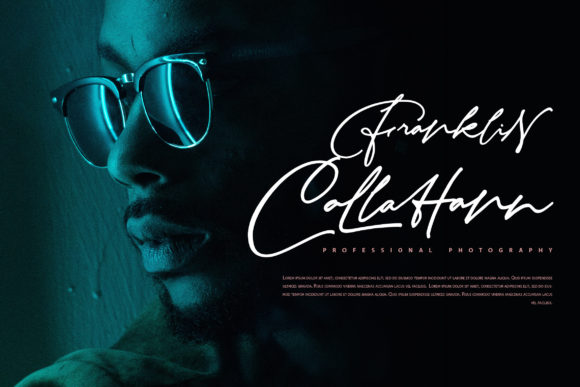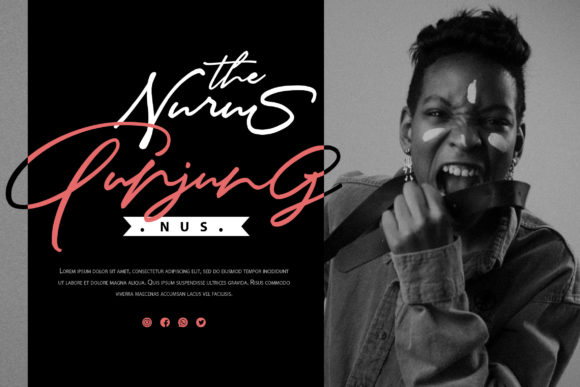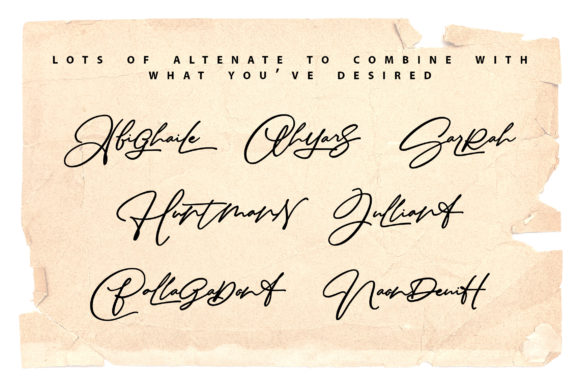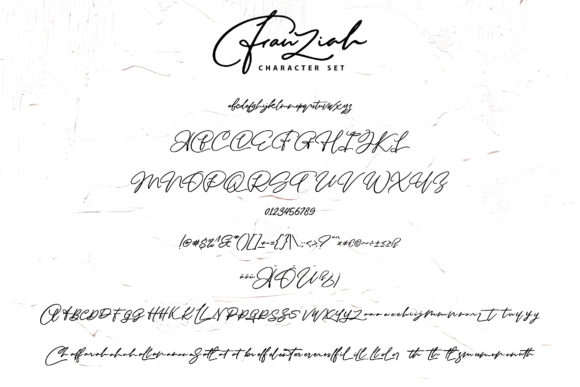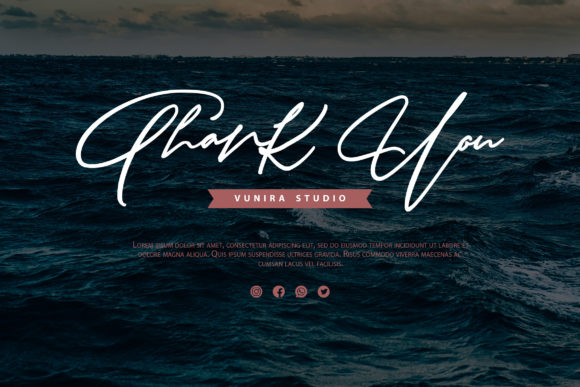
Fauziah Font: Elevate Your Designs with Elegance and Sophistication
In the world of typography, a font can make or break a design. For designers and crafters seeking to add a touch of elegance and sophistication to their work, Fauziah Font is an exceptional choice. This beautiful and refined script font is perfect for creating stunning logos, branding materials, invitations, stationery, wedding designs, social media posts, and more.
The Characteristics of Fauziah Font
Fauziah Font boasts a classy, elegant, and modern look that sets it apart from other script fonts. Its refined features make it an ideal choice for designers who want to create a lasting impression. Whether you’re working on a luxury brand, a wedding invitation, or a social media post, Fauziah Font is sure to elevate your design.
One of the standout features of Fauziah Font is its PUA (Private Use Area) encoding. This means that you can access all the amazing glyphs and ligatures with ease, giving you greater flexibility and creative control over your designs. With PUA encoding, you can effortlessly insert special characters, swashes, and other unique elements to make your designs truly stand out.
Fauziah Font is incredibly versatile, making it suitable for a wide range of design applications. Here are just a few examples of how you can use this stunning font:
- Logos and Branding: Create a lasting impression with a custom logo that exudes elegance and sophistication.
- Invitations and Stationery: Add a touch of refinement to your invitations, business cards, and letterheads.
- Wedding Designs: Make your wedding designs truly unforgettable with Fauziah Font’s beautiful script.
- Social Media Posts: Elevate your social media presence with stylish and eye-catching posts.
Why Choose Fauziah Font?
With so many fonts available, why choose Fauziah Font? Here are just a few reasons why designers and crafters love this font:
- Unique and Elegant: Fauziah Font offers a distinctive and refined look that sets it apart from other fonts.
- Highly Versatile: Use Fauziah Font for a wide range of design applications, from logos to social media posts.
- Easy to Use: With PUA encoding, you can easily access all the glyphs and ligatures you need.
Tips for Using Fauziah Font
To get the most out of Fauziah Font, here are a few tips to keep in mind:
- Experiment with Ligatures: Take advantage of Fauziah Font’s beautiful ligatures to add a touch of elegance to your designs.
- Play with Font Sizes: Use Fauziah Font in a variety of sizes to create visual interest and hierarchy in your designs.
- Pair with Other Fonts: Combine Fauziah Font with other fonts to create a unique and stylish typography combination.
Fauziah Font is a stunning script font that offers a world of creative possibilities for designers and crafters. With its elegant and refined features, PUA encoding, and versatility, this font is sure to become a favorite in your design arsenal. Whether you’re working on a luxury brand, a wedding invitation, or a social media post, Fauziah Font is the perfect choice for adding a touch of sophistication and elegance to your designs.